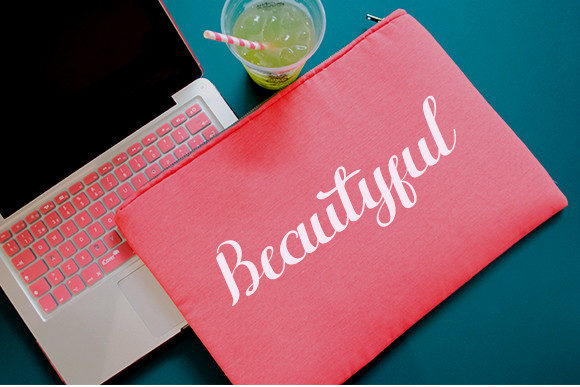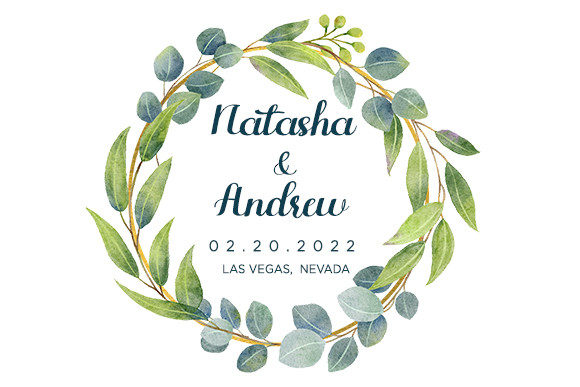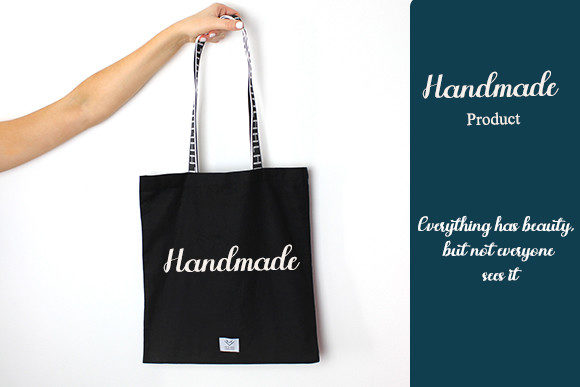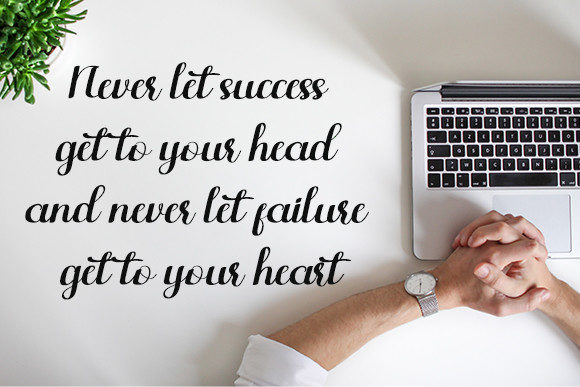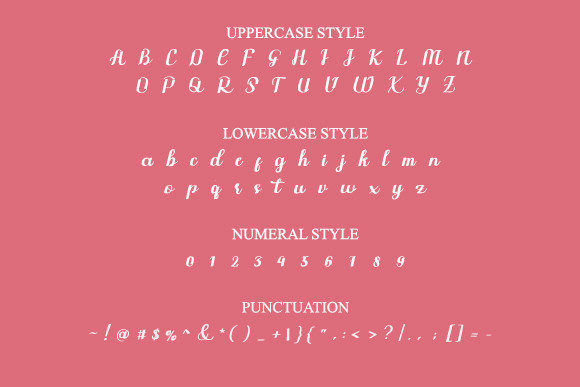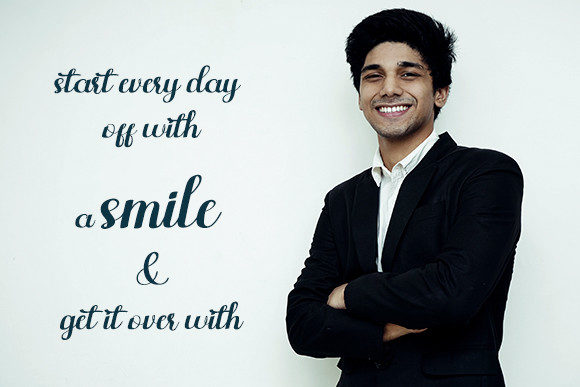
Hello Baby Font: Elevate Your Designs with Elegance and Sophistication
Hello Baby Font is a stunning handwritten font that has been making waves in the design community. Its unique blend of elegance and luxury makes it the perfect addition to any design project. In this article, we’ll dive into the world of Hello Baby Font, exploring its features, benefits, and uses, as well as provide tips and inspiration for designers and crafters looking to elevate their work.
The Beauty of Hello Baby Font
Hello Baby Font is a beautiful and dazzling handwritten font that is sure to capture attention. Its elegant and refined strokes make it perfect for designs that require a touch of sophistication. The font’s unique and intricate details add a level of luxury, making it ideal for high-end branding, packaging, and advertising projects.
What Makes Hello Baby Font Special?
- Unique and Elegant: Hello Baby Font boasts a distinct and refined style that sets it apart from other fonts. Its elegant strokes and beautiful details make it perfect for designs that require a touch of sophistication.
- Luxury Spark: The font’s intricate details and refined strokes add a level of luxury to any design project. Whether you’re working on branding, packaging, or advertising, Hello Baby Font is sure to elevate your work.
- Versatile: Hello Baby Font is versatile and can be used for a wide range of design projects, from digital to print. Its scalability and legibility make it perfect for use in various contexts, including headings, titles, and body text.
Uses of Hello Baby Font
Hello Baby Font is perfect for designers and crafters looking to add a touch of elegance and sophistication to their work. Here are some popular uses of the font:
- Branding and Logo Design: Hello Baby Font is ideal for creating luxury brand identities, logos, and business cards.
- Packaging Design: The font’s elegant and refined strokes make it perfect for packaging design, including product labels, tags, and packaging materials.
- Advertising and Marketing: Hello Baby Font can be used to create eye-catching advertisements, social media graphics, and marketing materials.
- Stationery and Invitations: The font’s unique and elegant style makes it perfect for creating beautiful stationery, invitations, and greeting cards.
Tips for Using Hello Baby Font
To get the most out of Hello Baby Font, here are some tips to keep in mind:
- Pair with Neutral Fonts: Pair Hello Baby Font with neutral fonts to create contrast and visual interest.
- Use for Headings and Titles: Use Hello Baby Font for headings and titles to add a touch of elegance and sophistication.
- Experiment with Colors: Experiment with different colors and textures to add depth and visual interest to your designs.
Hello Baby Font is a beautiful and dazzling handwritten font that is sure to elevate your design projects. Its unique blend of elegance and luxury makes it perfect for designers and crafters looking to add a touch of sophistication to their work. With its versatility, scalability, and legibility, Hello Baby Font is an excellent addition to any design toolkit.